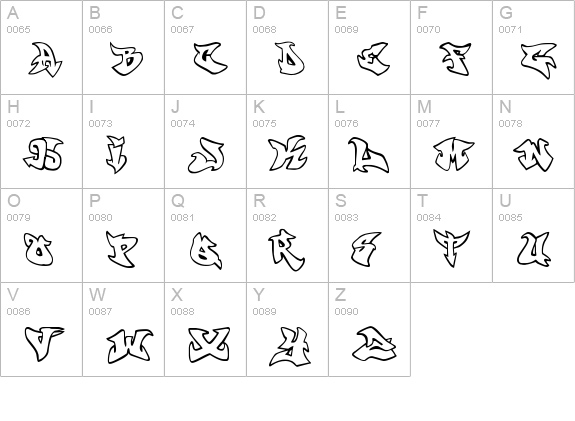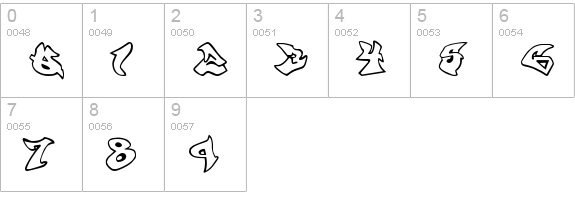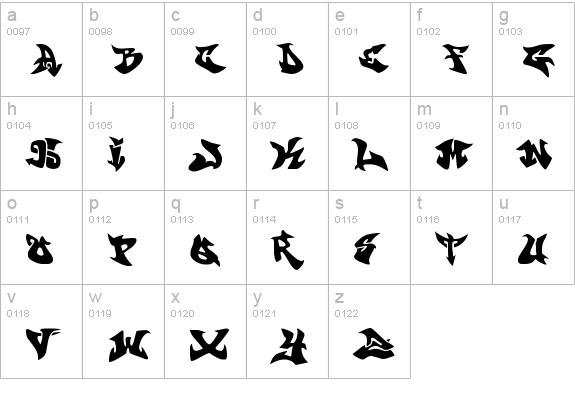
graffonti v3.51 atomic.bomb Font Details
The Graffonti v3.51 Atomic.Bomb font is a bold and striking typeface that exudes a sense of urban edge and modernity. Its sharp angles and intricate details make it perfect for adding a touch of rebellious flair to any design project. This font is ideal for creating eye-catching headlines, posters, and logos that demand attention. What's more, the Graffonti v3.51 Atomic.Bomb font is completely free to download at FontsMarket.com. This means that you can unleash your creativity without any constraints or costs. Whether you're a graphic designer looking to make a statement or a budding artist exploring new styles, this font offers endless possibilities for your projects. So go ahead and download the Graffonti v3.51 Atomic.Bomb font today and let your imagination run wild!